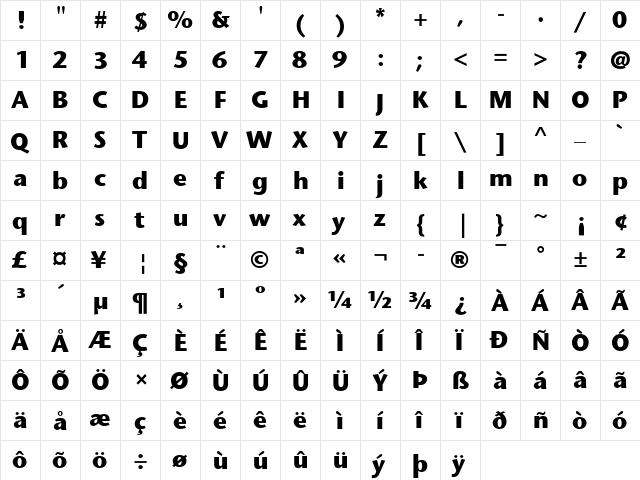
StoneSans Bold
Design Context for StoneSans Typeface
StoneSans takes a measured approach to typography — its balanced proportions and neutral character make it a reliable workhorse for both digital and print work. The heavy weight commands attention and anchors typographic hierarchies.